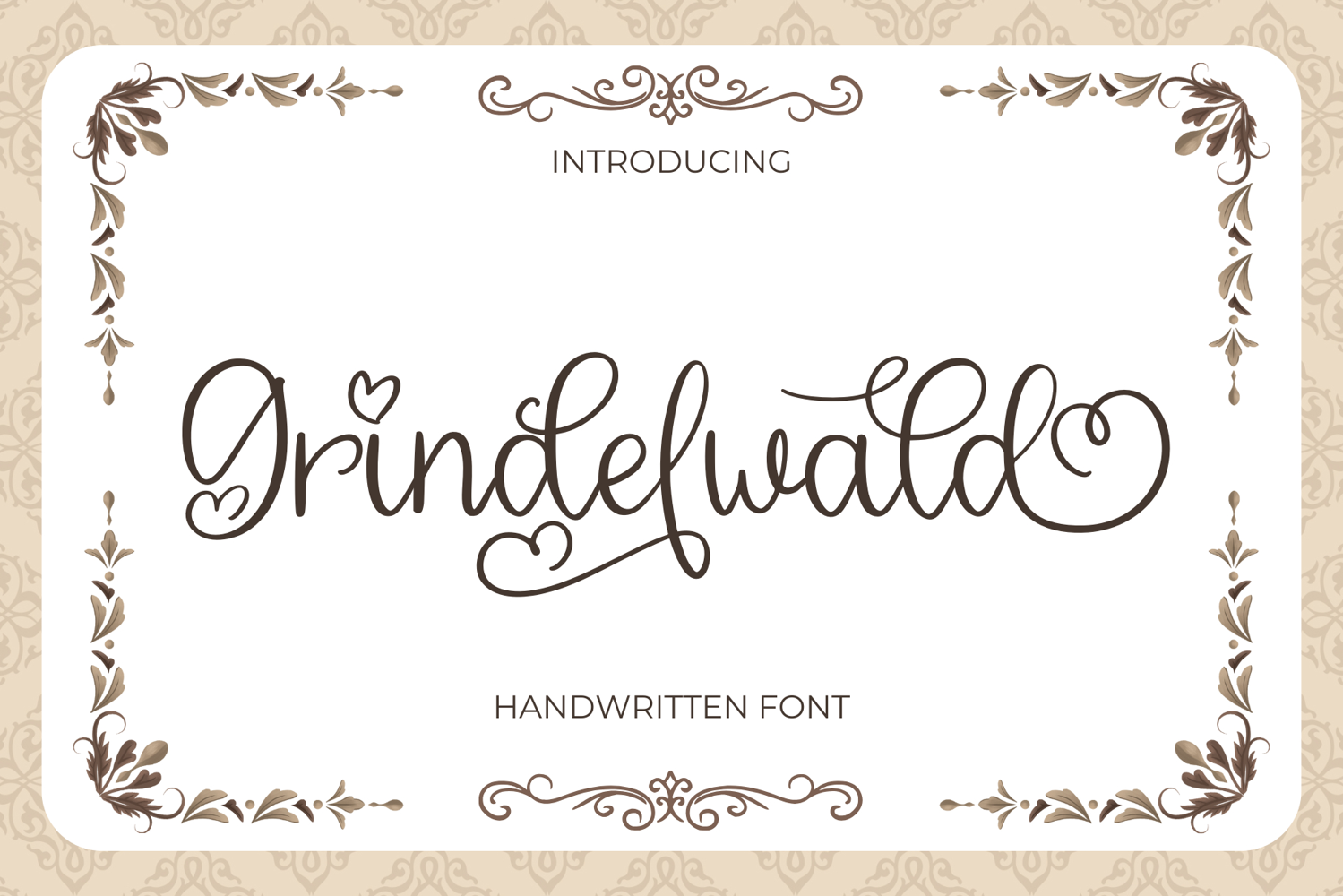
Grindelwald
Grindelwald Script is a soft and elegant handwritten script inspired by the calm beauty of alpine towns and crisp peppermint-fresh air.
It features smooth curves, playful connections, and charming swashes that create a romantic yet friendly feel.
Designed to feel sweet, fresh, and timeless, Grindelwald Script works beautifully for wedding designs, quotes, branding, packaging, social media, and lifestyle projects. Its natural flow makes every word feel special, warm, and effortlessly stylish.